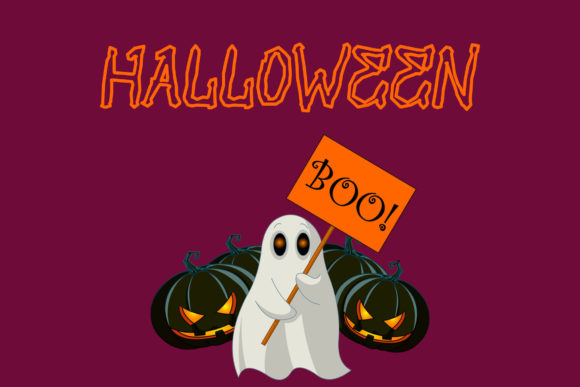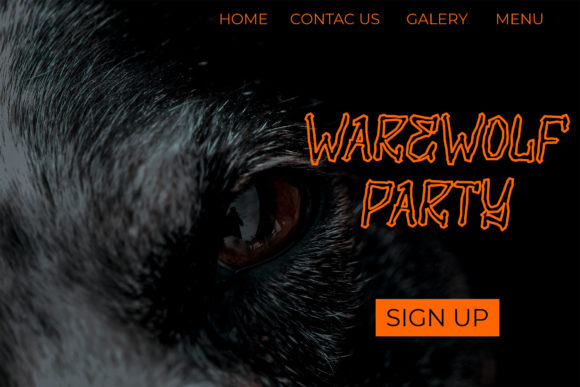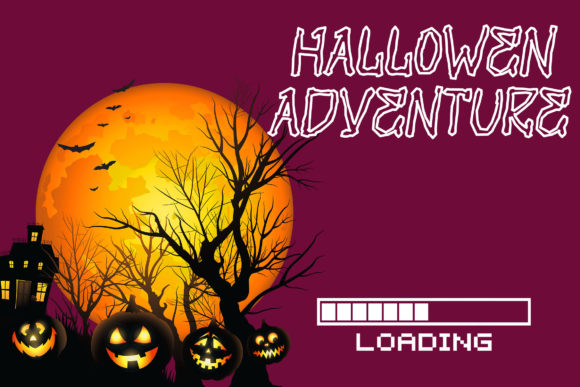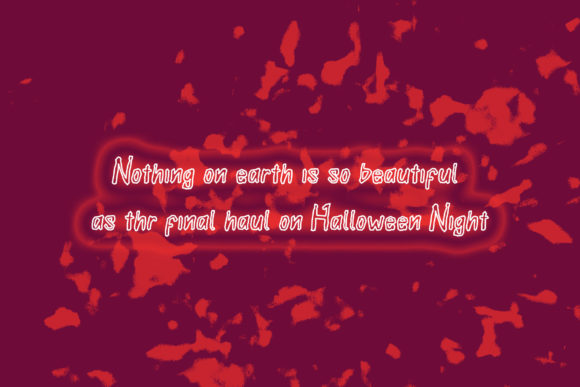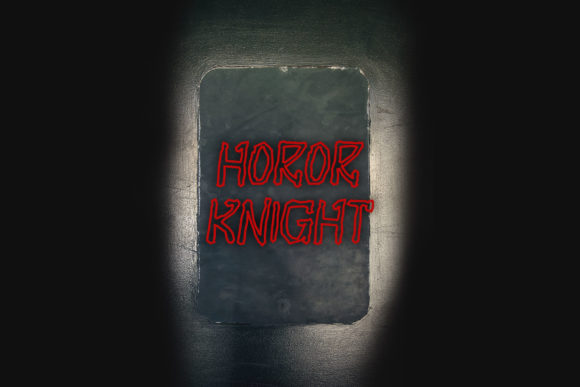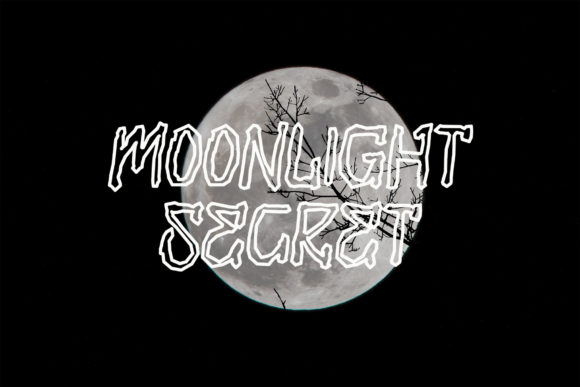
Introduction to Scare Roar Font Font
Fonts play a crucial role in design, and the Scare Roar Font font is a typeface that brings both character and versatility to any project. Whether you’re working on a branding project, a website, or a print design, the Scare Roar Font font offers a unique style that can elevate your work.
Scare Roar is a creepy and dark looking display font.
It is perfectly suitable for any Halloween-related project or crafty idea The only limit is your imagination.
Key Features of Scare Roar Font Font
Why Choose Scare Roar Font Font?
The Scare Roar Font font is more than just a typeface – it’s a design tool that helps you communicate your message with style and clarity. Its unique character set and versatile design make it suitable for a wide range of applications, from elegant invitations to bold headlines.
With its carefully crafted letterforms and balanced proportions, the Scare Roar Font font ensures readability and visual appeal across all mediums.
What makes Scare Roar Font font special?
The Scare Roar Font font stands out with its unique design, exceptional readability, and versatility across various design applications.